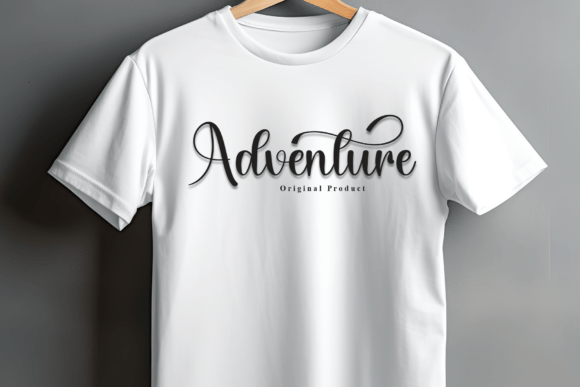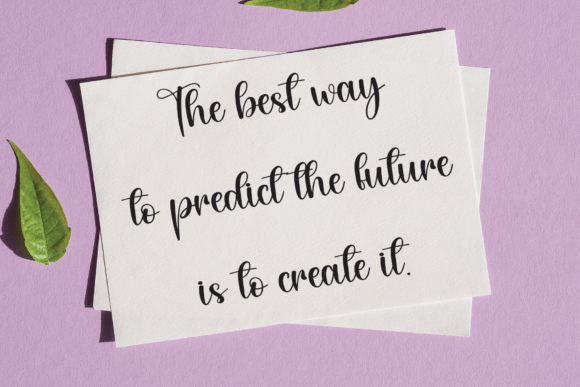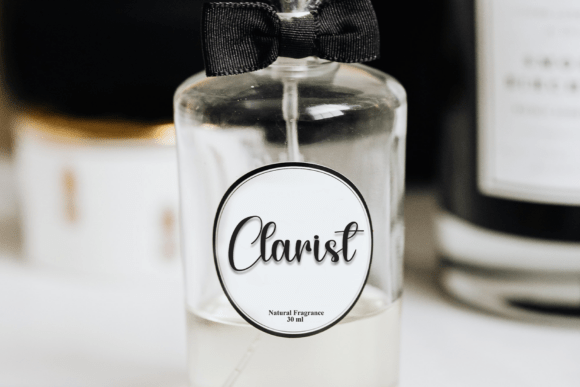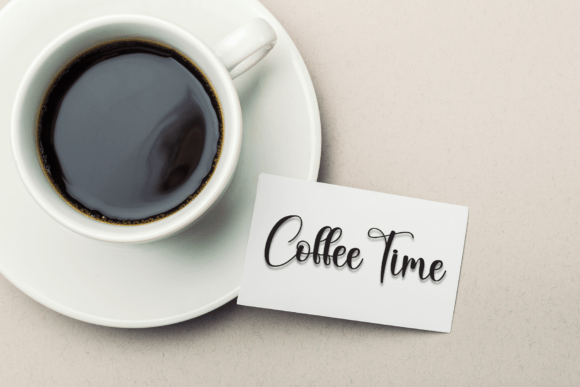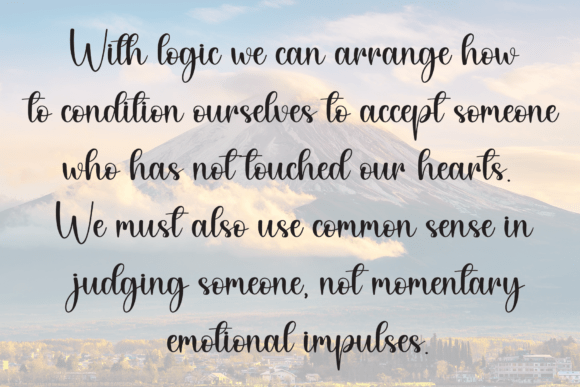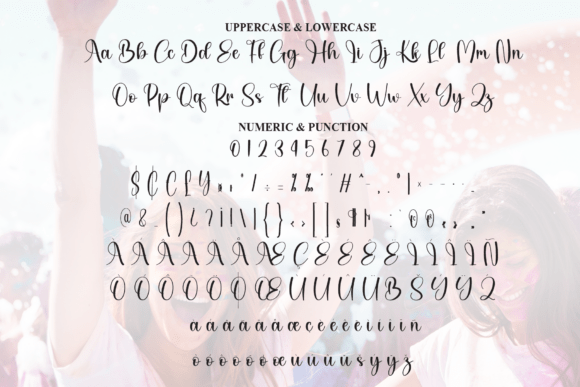
Introducing Bestival Font: Elevate Your Designs with Elegance and Fluidity
Are you on the hunt for a font that exudes sophistication, charm, and a touch of modernity? Look no further than Bestival Font, a stylish handwritten script font that is sure to take your designs to the next level. With its smooth, flowing strokes and natural feel, Bestival is the perfect choice for designers, crafters, and creatives looking to add a personal touch to their projects.
The Characteristics of Bestival Font
Bestival Font is a true gem in the world of typography. Its elegant and fluid design makes it an excellent choice for a wide range of applications, from branding and invitations to creative projects and more. Here are just a few of the key characteristics that set Bestival apart:
- Smooth, flowing strokes: Bestival’s strokes are carefully crafted to create a natural, effortless feel that is both soothing and sophisticated.
- Elegant and refined: This font is perfect for designs that require a touch of luxury and refinement, making it ideal for high-end branding, weddings, and other special occasions.
- Charming and modern: Bestival strikes the perfect balance between classic charm and modern style, making it an excellent choice for designers looking to create something truly unique.
Uses for Bestival Font
Bestival Font is incredibly versatile, making it suitable for a wide range of applications. Here are just a few ideas to get you started:
- Branding: Use Bestival to create a sophisticated and memorable brand identity that will set you apart from the competition.
- Invitations: Whether you’re planning a wedding, birthday party, or other special occasion, Bestival is the perfect choice for creating beautiful, eye-catching invitations.
- Creative projects: From art journals and scrapbooking to digital art and illustration, Bestival is a great choice for adding a personal touch to your creative projects.
Why Choose Bestival Font?
With so many fonts to choose from, why should you choose Bestival? Here are just a few reasons why Bestival stands out from the crowd:
- Unique and distinctive: Bestival’s elegant and fluid design makes it a true standout in the world of typography.
- Highly versatile: Whether you’re working on a branding project, invitation, or creative project, Bestival is a great choice.
- Easy to read: Despite its elegant and refined design, Bestival is incredibly easy to read, making it perfect for both digital and print applications.
Tips for Using Bestival Font
In conclusion, Bestival Font is a stylish and sophisticated handwritten script font that is perfect for designers, crafters, and creatives looking to add a personal touch to their projects. With its smooth, flowing strokes and natural feel, Bestival is sure to elevate your designs and take them to the next level. So why wait? Download Bestival Font today and start creating beautiful, eye-catching designs that will leave a lasting impression.